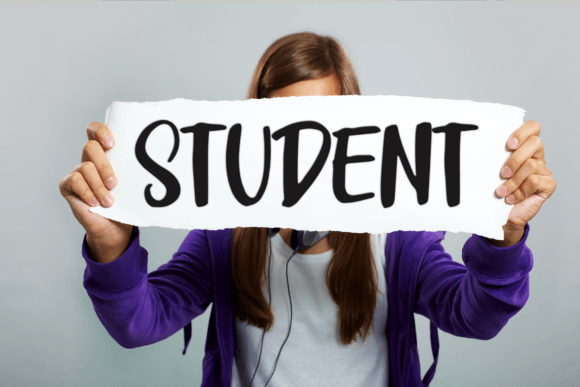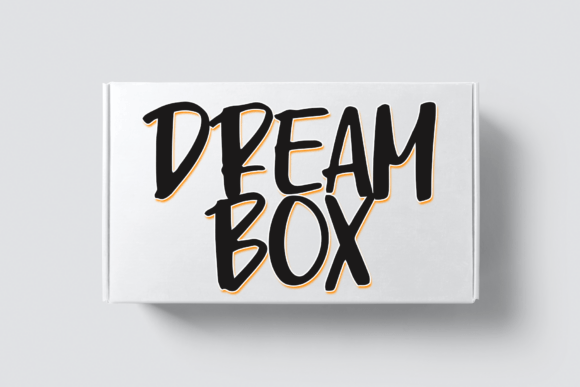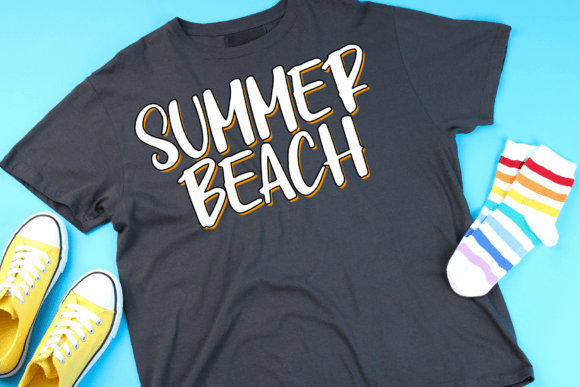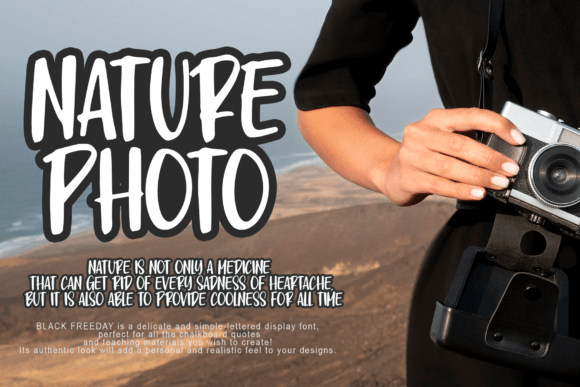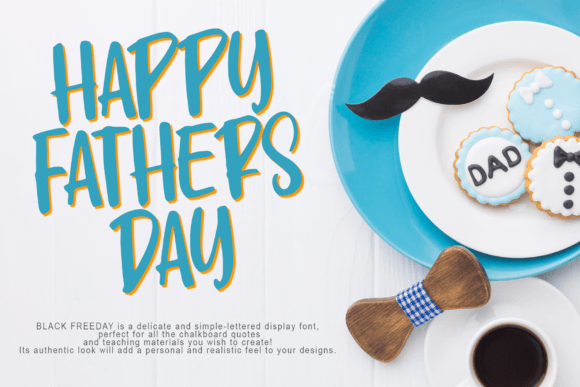
The Joy of Typography: Discovering Black Freeday Font
Remember that magical moment when you stumbled upon the perfect font for a project? You know, the one that just clicks and makes everything come together? For many designers, that moment is what makes all the late nights and endless iterations worth it. And for those who love creating whimsical and playful designs, that moment often involves the delightful Black Freeday Font.
Black Freeday Font is a charming display font designed to evoke a sense of camaraderie and joy. Its playful curves and friendly demeanor make it perfect for children’s books, party invitations, or any design project that seeks to radiate warmth and cheerfulness. Whether you’re a seasoned designer or just starting out, this font is sure to bring a smile to your face and a touch of magic to your creations.
Black Friday Font Key Features
- Font Family: Black Friday Font is a sans-serif font family designed specifically for use in promotional and sales-related materials.
- Size: The font family includes 12 font styles ranging from 8pt to 72pt in increments of 4pt, making it suitable for a variety of applications.
- Unique Characteristics: The font features a distressed, hand-drawn look with bold lines and rough edges, giving it a unique and eye-catching appearance.
Designer Review: Black Freeday Font
Black Freeday Font is a unique and attention-grabbing font that can add an edgy touch to your designs. ✨ One of its standout features is its versatility, as it can be used for a variety of projects, from bold headlines to subtle body text. ✨ The font’s irregular texture and subtle distortion give it a sense of depth and dimensionality that can add visual interest to your designs.
However, there are some limitations to consider. ⚠️ The font’s bold and distressed look can be overwhelming if used in excess, and it may not be suitable for all types of projects, such as children’s books or formal documents. ⚠️ Additionally, the font’s texture and distortion can sometimes make it difficult to read, particularly for those with vision impairments.
Overall, I would recommend Black Freeday Font for projects that require a bold and edgy look. However, it’s essential to use it judiciously and balance it with other fonts to avoid overwhelming the viewer.
Here are some pros and cons to consider:
- ✨ Unique and attention-grabbing look
- ✨ Versatile and suitable for a variety of projects
- ⚠️ Can be overwhelming if used in excess
- ⚠️ May not be suitable for all types of projects
- ⚠️ Can be difficult to read in certain situations
Practical Application Guide for Black Freeday Font
Black Freeday Font is ideal for:
- Casual blog posts or articles.
- Designing social media graphics.
- Creating posters or flyers.
To get the most out of Black Freeday Font:
- Use it in combination with bold or italic styles to create emphasis.
- Pair it with other fonts to create a unique and eye-catching design.
- Choose a striking image with a mix of light and dark tones.
- Use Black Freeday Font to overlay text onto the image, experimenting with different font sizes and styles.
- Emphasize the text with bold colors or neon accents to create a striking contrast.
- Pair Black Freeday Font with a distressed texture to give it an even more rugged look.
- Use neon colors to create a mesmerizing glow effect around the text.
- Select a bright, bold color scheme that contrasts with the font’s dark tones.
- Use a digital drawing tool to create abstract shapes and patterns around the font.